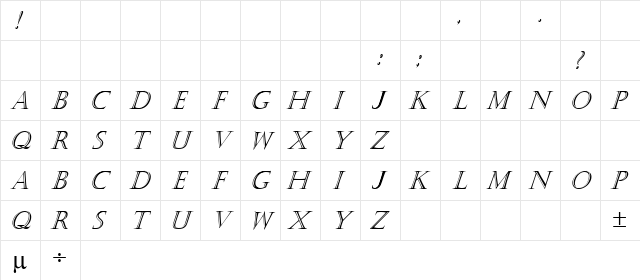
Kastellar Italic Font Preview
Kastellar Italic
Kastellar Italic Font Details
Design Context for Kastellar Typeface
Kastellar is a composed and adaptable typeface that performs quietly and consistently across a wide range of design contexts. Its italic angle brings a sense of urgency and motion to the letterforms.